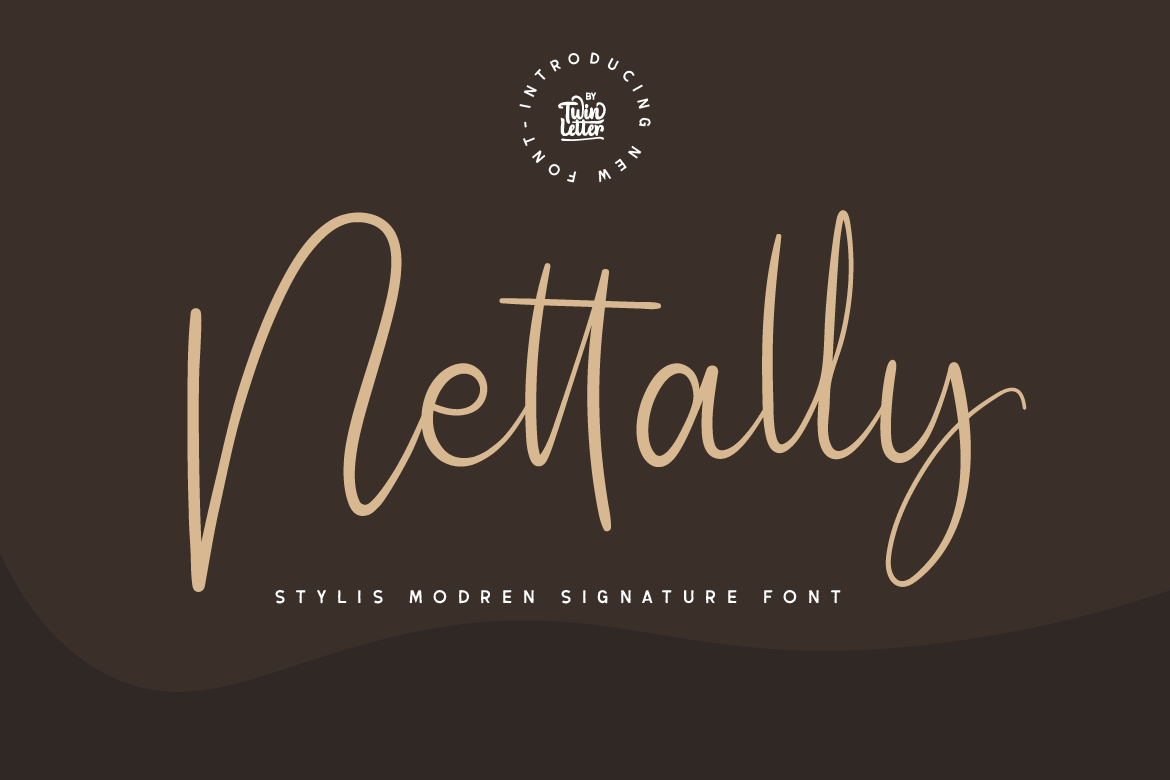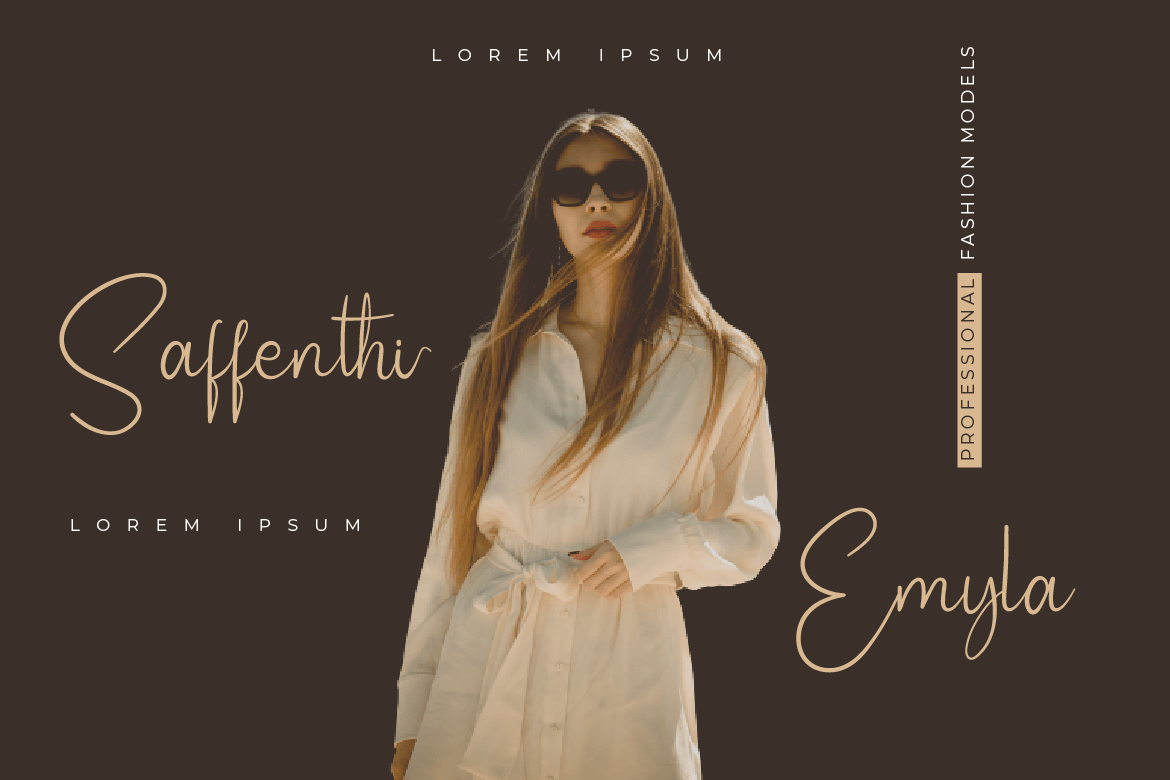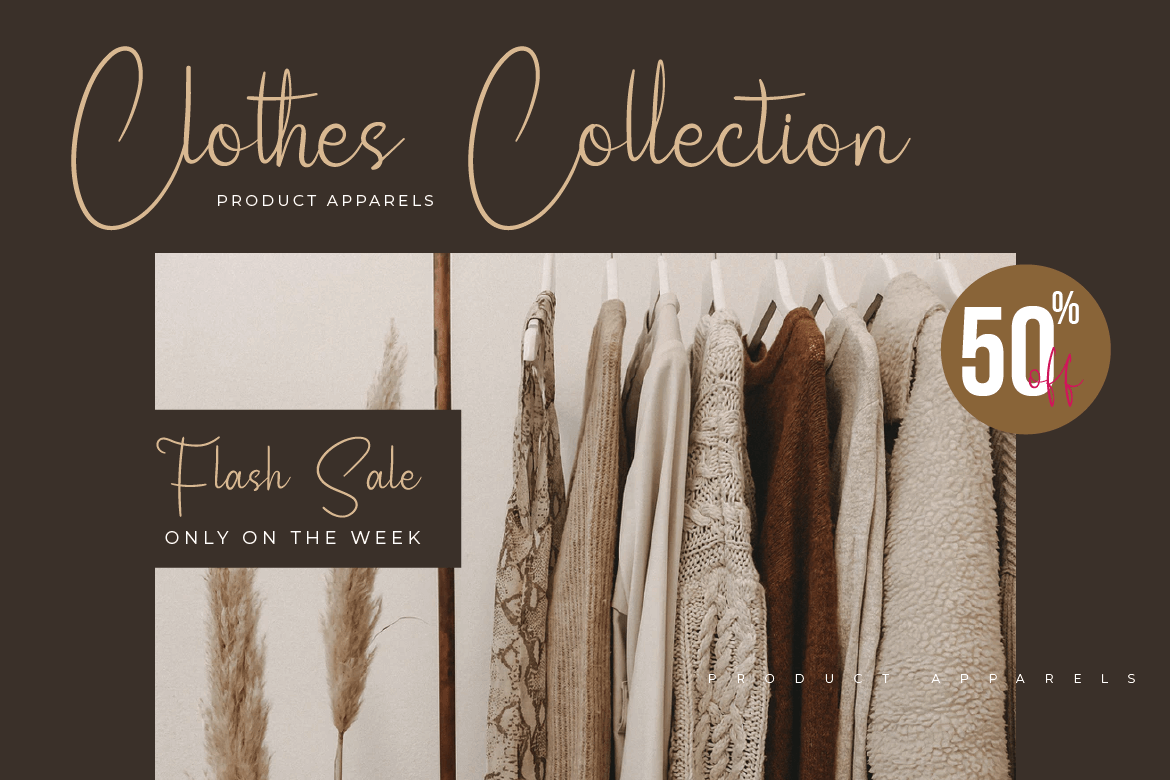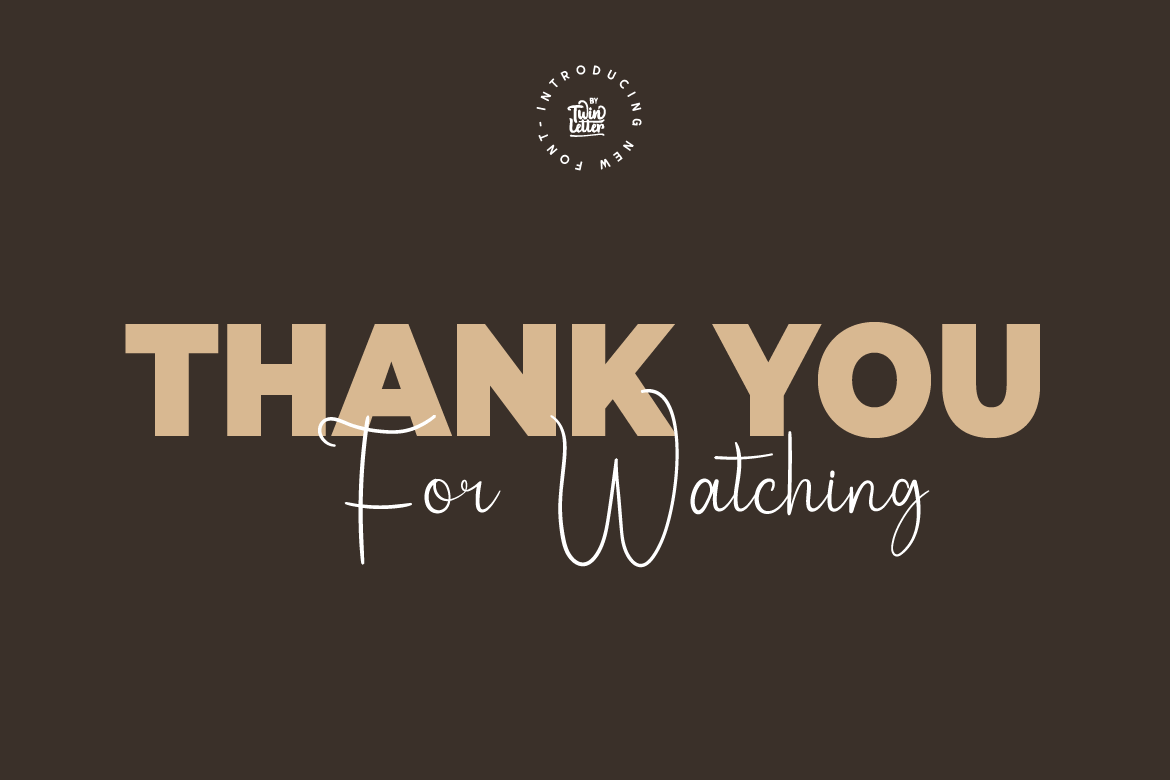
Nettally
Nettally is a lovely signature font with a delicate and feminine vibe about it.
This typeface gives off a sense of elegance, simplicity, and charm.
This typeface was created with a refined natural touch of handwriting to produce parts and compositions that meet your demands. As a result, this typeface is ideal for crafts, children’s writing, adventure posters, and other similar applications.